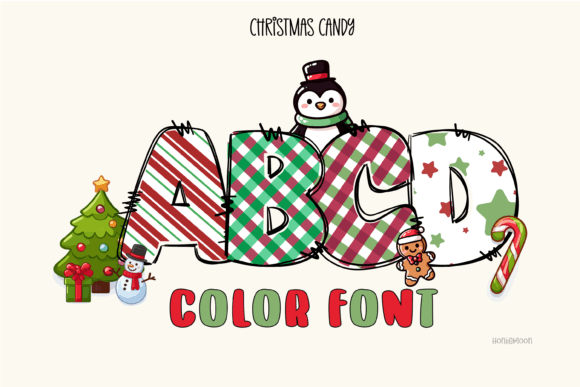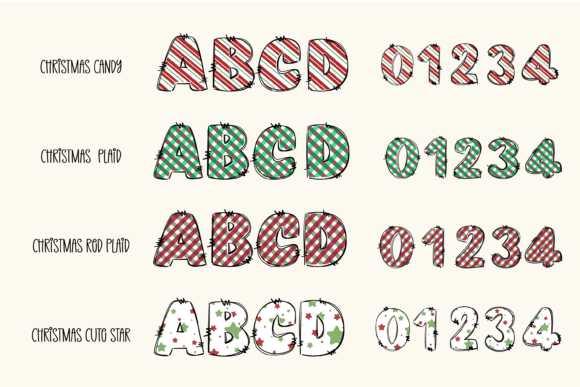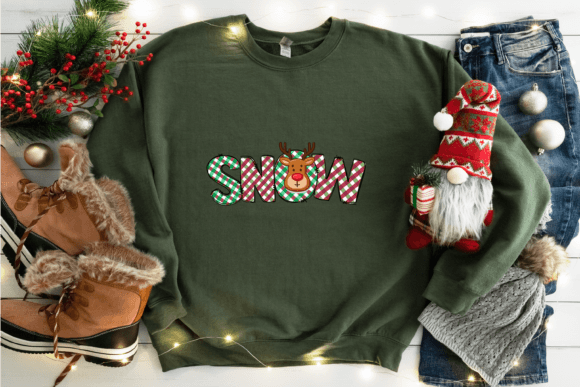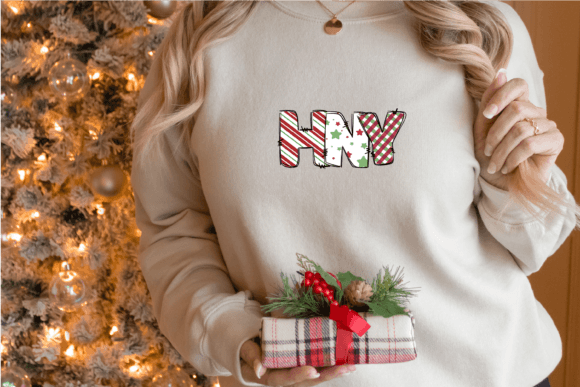
Deck the Halls with Holiday Cheer: Introducing Christmas Candy Font
It’s that magical time of the year when creativity knows no bounds, and the festive spirit takes over. You’re rummaging through your stash of glittery decorations, baking sugar cookies, and planning the perfect holiday card design. Suddenly, the perfect font strikes your mind – one that’s as sweet as the treats you’re baking and as merry as the season itself. That’s where Christmas Candy Font comes in – a delightful alphabet font designed to add a dash of festive flair to your holiday designs.
With Christmas Candy Font, you can transform your holiday projects into eye-catching masterpieces that scream “joy” and “cheer.” Whether you’re a seasoned designer or a crafty enthusiast, this font is a valuable addition to your toolkit. Its versatility and compatibility with popular design programs make it a must-have for creating stunning holiday cards, gift tags, and decorations that will leave a lasting impression.
Christmas Candy Font Key Features
- Unique Characteristics: This font features hand-drawn, whimsical designs with a mix of bold and cursive elements, perfect for creating festive holiday graphics
Christmas Candy Font Review
- The font’s playful, whimsical feel perfectly captures the spirit of the holiday season.
- The bold, bright colors and ornate details are sure to add a touch of festive flair to any design project.
- The font is highly customizable, allowing you to adjust the color palette, size, and spacing to fit your unique needs.
- The font may be a bit too ornate for some designs, potentially overwhelming the overall aesthetic.
- The bold lines and bright colors may not be suitable for more subdued or minimalist designs.
- The font’s complexity may make it more challenging to use for beginners or those with limited design experience.
Overall, I think the “Christmas Candy Font” is a great choice for designers looking to add a fun, festive touch to their holiday projects. While it may have some limitations, its versatility and customizability make it a great option for those willing to experiment and push the boundaries of their creativity.
The Christmas Candy Font is ideal for holiday-themed designs, such as Christmas cards, gift tags, and social media posts. It’s also great for adding a festive touch to invitations, menus, and other print materials.